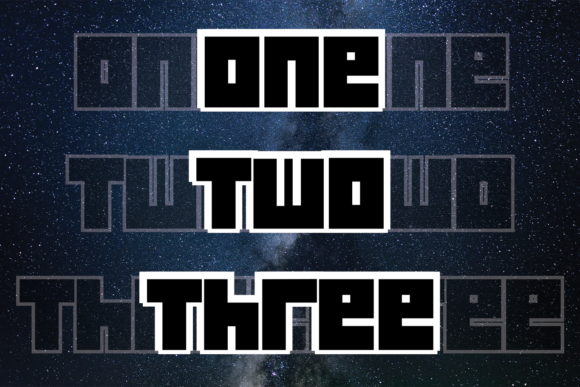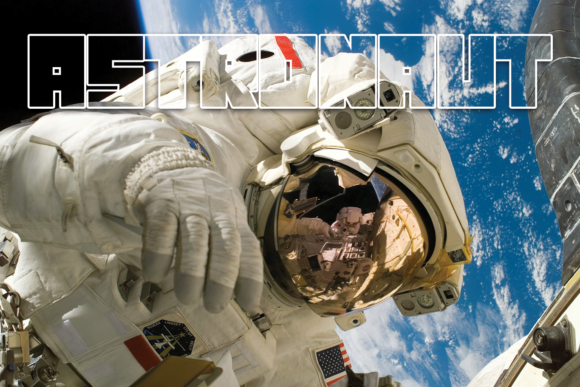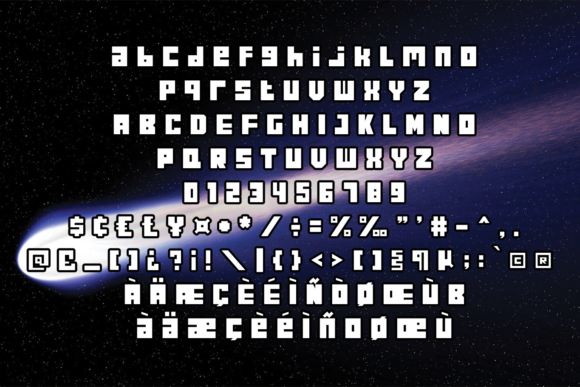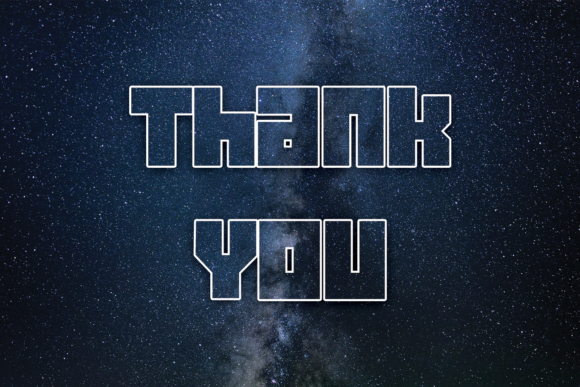
Introducing Comet Font: The Ultimate Display Font for Bold Designs
Are you tired of using the same old fonts for your designs? Look no further! Comet Font is here to revolutionize your typography with its bold and thick lettered style. This stunning display font is perfect for creating eye-catching posters, flyers, and prints that will leave a lasting impression on your audience.
What is Comet Font?
Comet Font is a carefully crafted display font that boasts a unique and striking appearance. Its bold and thick letters are designed to grab attention and make a statement. Whether you’re a designer, crafty DIY enthusiast, or simply someone who loves to create, Comet Font is the perfect addition to your typography arsenal.
Key Features of Comet Font
- Bold and Thick Letters: Comet Font features bold and thick letters that are sure to make your designs stand out.
- Display Font: Designed specifically for display purposes, Comet Font is perfect for headlines, titles, and short text.
- Highly Versatile: Use Comet Font for a wide range of design projects, from posters and flyers to prints and more.
- Easy to Read: Despite its bold style, Comet Font is easy to read, making it perfect for designs that require a clear message.
Endless Possibilities with Comet Font
Comet Font is incredibly versatile, making it suitable for a wide range of design projects. Here are some ideas to get you started:
- Posters: Create stunning posters for events, promotions, or simply to showcase your favorite quotes.
- Flyers: Design eye-catching flyers for businesses, events, or services.
- Prints: Use Comet Font for prints, such as art prints, photographs, or inspirational quotes.
- Logos: Experiment with Comet Font for logo designs that require a bold and striking appearance.
Why Choose Comet Font?
With so many fonts available, why choose Comet Font? Here are just a few reasons:
- Unique Style: Comet Font offers a unique and distinctive style that’s sure to set your designs apart.
- High-Quality: Comet Font is a high-quality font that’s designed to produce crisp and clear results.
Tips for Using Comet Font
To get the most out of Comet Font, here are some tips to keep in mind:
- Use for Headlines: Comet Font is perfect for headlines and titles, where a bold and striking appearance is required.
- Experiment with Colors: Try Comet Font with different colors to create unique and eye-catching effects.
- Pair with Other Fonts: Experiment with pairing Comet Font with other fonts to create interesting and dynamic typography.